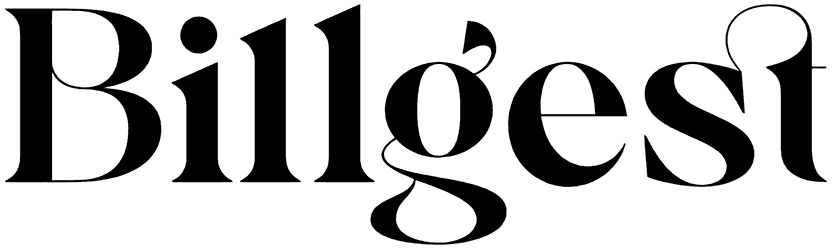
Billgest Font
You can totally count on a fashion font like this one to showcase a chic and professional layout and leave a nice first impression on your followers. The Billgest font is a nice pickup for different designs, such as fashion event invitation flyers. With the stylish and pretty letters of this elegant font, you can create a mesmerizing design.